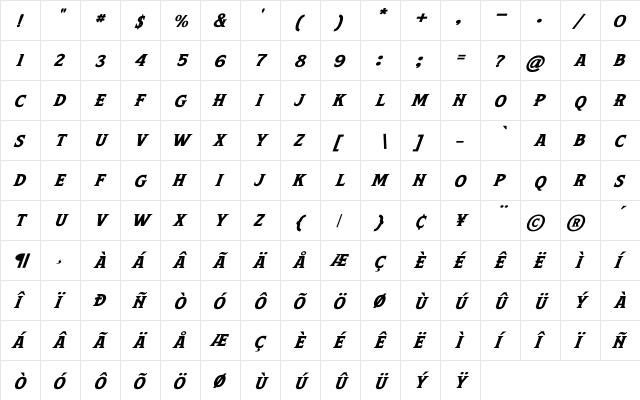
Leviathan Italic Regular
Design Context for Leviathan Italic Typeface
Leviathan Italic is a composed and adaptable typeface that performs quietly and consistently across a wide range of design contexts. The dynamic lean of this cut emphasises speed and emphasis in any layout.
Pro Tip: Use Leviathan Italic for emphasis, pull quotes, and subheadings where its slanted energy can add rhythm to the layout.